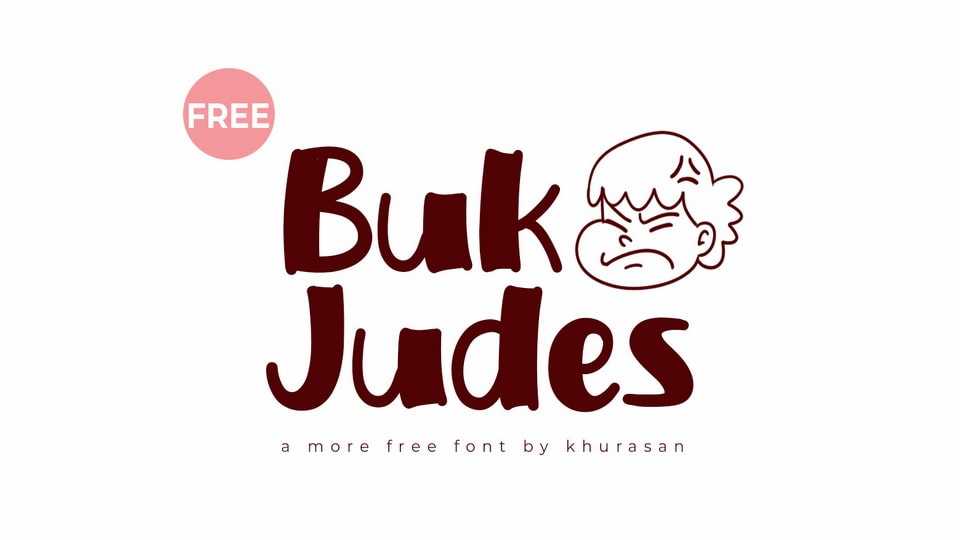
Download Buk Judes font, a hand drawn font that takes fun and quirkiness to the next level. Each letter is a playful dance of doodles and curls, bringing a sense of lighthearted joy to your text.